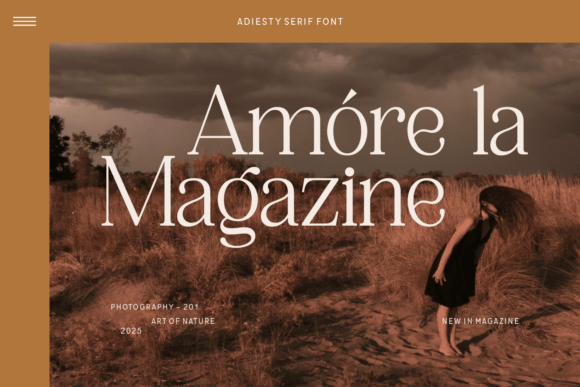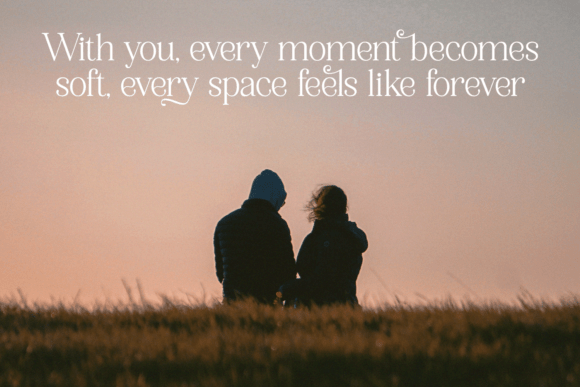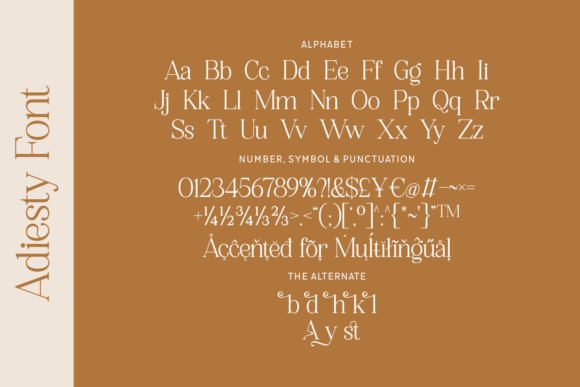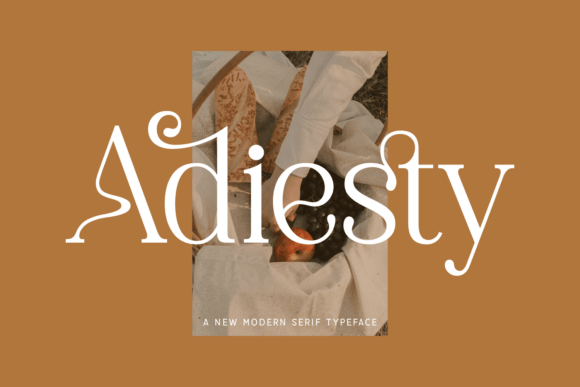
Introducing Adiesty Font: Elevate Your Design with Timeless Elegance
In the world of typography, a well-crafted font can elevate a design from ordinary to extraordinary. Adiesty Font is a sophisticated modern serif typeface that embodies the perfect balance between classic elegance and contemporary flair. With its artistic swashes and graceful curves, Adiesty exudes a timeless charm that is sure to captivate designers, crafters, and anyone looking to add a touch of luxury to their projects.
The Art of Adiesty: A Masterful Blend of Classic and Modern Elements
Adiesty Font boasts a unique blend of classic serif elements and modern artistic swashes, making it an ideal choice for a wide range of design applications. Its serif structure provides a sense of tradition and stability, while the swashes add a touch of creativity and flair. This masterful blend of old and new results in a typeface that is both elegant and sophisticated, perfect for designs that require a high level of refinement.
Perfect for Editorial Design, Upscale Branding, and Luxury Packaging
Adiesty’s versatility makes it an excellent choice for various design projects, including editorial design, upscale branding, wedding invitations, and luxury packaging. Its classic elegance and modern charm make it perfect for:
- Editorial design: Adiesty Font is ideal for magazines, newspapers, and books that require a sophisticated and elegant typography.
- Upscale branding: Adiesty’s luxurious feel makes it perfect for high-end brands looking to establish a sophisticated image.
- Wedding invitations: Adiesty’s artistic swashes and elegant curves make it an excellent choice for wedding invitations and other formal events.
- Luxury packaging: Adiesty’s timeless charm and sophisticated feel make it perfect for luxury packaging designs that require a high level of elegance.
Elevate Every Letter into a Visual Statement
One of the standout features of Adiesty Font is its ability to elevate every letter into a visual statement. The artistic swashes and graceful curves add a level of sophistication and elegance to each letter, making it perfect for designs that require a high level of refinement. Whether you’re designing a logo, a headline, or a body of text, Adiesty Font is sure to make a lasting impression.
Key Features of Adiesty Font
Adiesty Font boasts a range of key features that make it an excellent choice for designers and crafters, including:
- Sophisticated modern serif typeface with artistic swashes and graceful curves.
- Perfectly balanced between classic elegance and contemporary flair.
- Ideal for editorial design, upscale branding, wedding invitations, and luxury packaging.
- Elevates every letter into a visual statement.
- Timeless charm and sophisticated feel.
In conclusion, Adiesty Font is a sophisticated modern serif typeface that embodies the perfect balance between classic elegance and contemporary flair. With its artistic swashes and graceful curves, Adiesty exudes a timeless charm that is sure to captivate designers, crafters, and anyone looking to add a touch of luxury to their projects. Whether you’re designing a logo, a headline, or a body of text, Adiesty Font is sure to elevate your design and make a lasting impression.